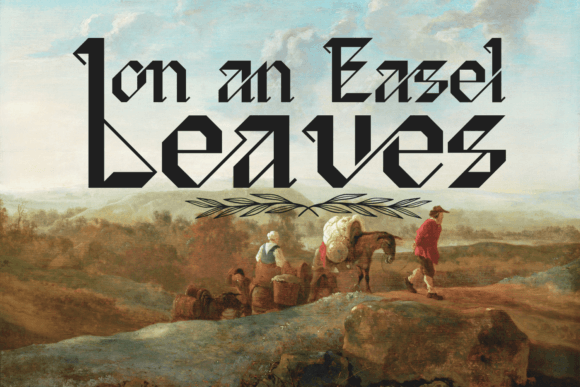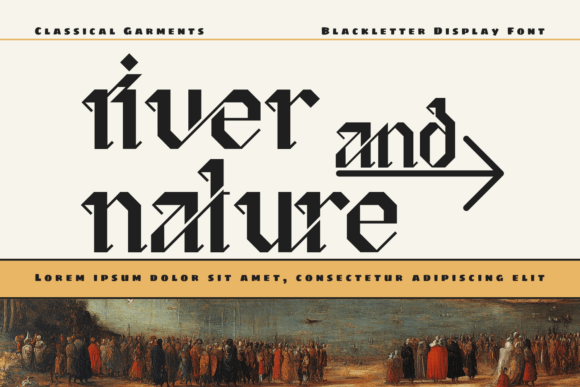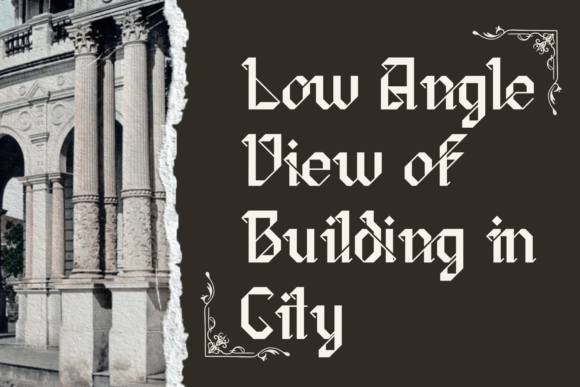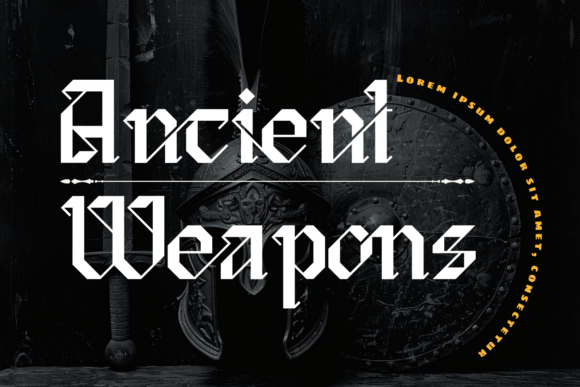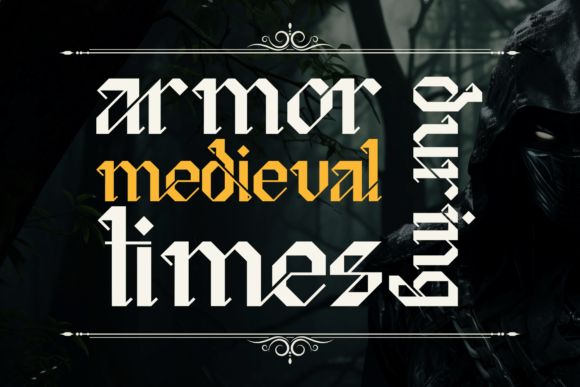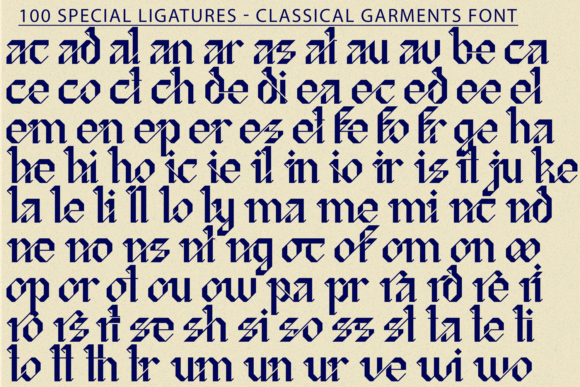
Introducing Classical Garments Font: A Modern Twist on Timeless Elegance
In the world of typography, few font styles evoke the same level of sophistication and authority as blackletter designs. With their rich history and classic aesthetic, blackletter fonts have been a staple of luxury branding, high-end fashion, and elegant signage for centuries. However, in today’s fast-paced design landscape, it’s not always easy to find a blackletter font that feels both timeless and modern. That’s where Classical Garments Font comes in – a stunning, modern blackletter display font that seamlessly blends traditional elegance with bold, contemporary flair.
A Fresh Take on Traditional Blackletter Design
Classical Garments Font is a masterful reimagining of traditional blackletter design, infused with a modern sensibility that makes it perfect for designers and crafters looking to create striking, high-impact visuals. Featuring sharp lines, striking serifs, and bold strokes, this typeface exudes confidence and sophistication, while its modern elements ensure it feels fresh and relevant in today’s design landscape.
Built for Versatility and Creativity
One of the standout features of Classical Garments Font is its incredible versatility. Built with OpenType features, this font includes an impressive array of 100 ligatures, alternate characters, numbers, punctuation, and language support. This means that designers can experiment with a wide range of creative expressions, from elegant and refined to bold and playful. Whether you’re working on a luxury brand identity, a fashion label, or a high-end product packaging project, Classical Garments Font provides the perfect foundation for your design.
Elegance and Authority in Every Detail
From its bold, sweeping strokes to its intricate serifs and ligatures, every detail of Classical Garments Font has been carefully crafted to convey a sense of elegance and authority. This font is perfect for designers who want to create a sense of luxury and sophistication in their work, whether that’s through a bold headline, a elegant body text, or a striking logo. With Classical Garments Font, you can add a touch of timeless elegance to your design, while still feeling modern and fresh.
Classical Garments Font is a dream come true for designers and crafters who appreciate the art of typography. With its stunning visuals and incredible versatility, this font is perfect for a wide range of creative projects, from branding and advertising to packaging and signage. Whether you’re a seasoned designer or a crafty DIY enthusiast, Classical Garments Font provides the perfect tool for bringing your creative vision to life.
Key Features of Classical Garments Font
- Modern blackletter display font with a bold, contemporary approach
- Combines timeless elegance with fresh, modern elements
- Features sharp lines, striking serifs, and bold strokes
- Built with OpenType features for incredible versatility
- Includes 100 ligatures, alternate characters, numbers, punctuation, and language support
- Perfect for luxury branding, high-end fashion, and elegant signage
In conclusion, Classical Garments Font is a truly exceptional typeface that offers a unique blend of timeless elegance and modern sophistication. With its stunning visuals, incredible versatility, and impressive feature set, this font is perfect for designers and crafters who want to create striking, high-impact visuals that exude authority and sophistication. Whether you’re working on a luxury brand identity, a fashion label, or a high-end product packaging project, Classical Garments Font is the perfect choice for adding a touch of elegance and refinement to your design.